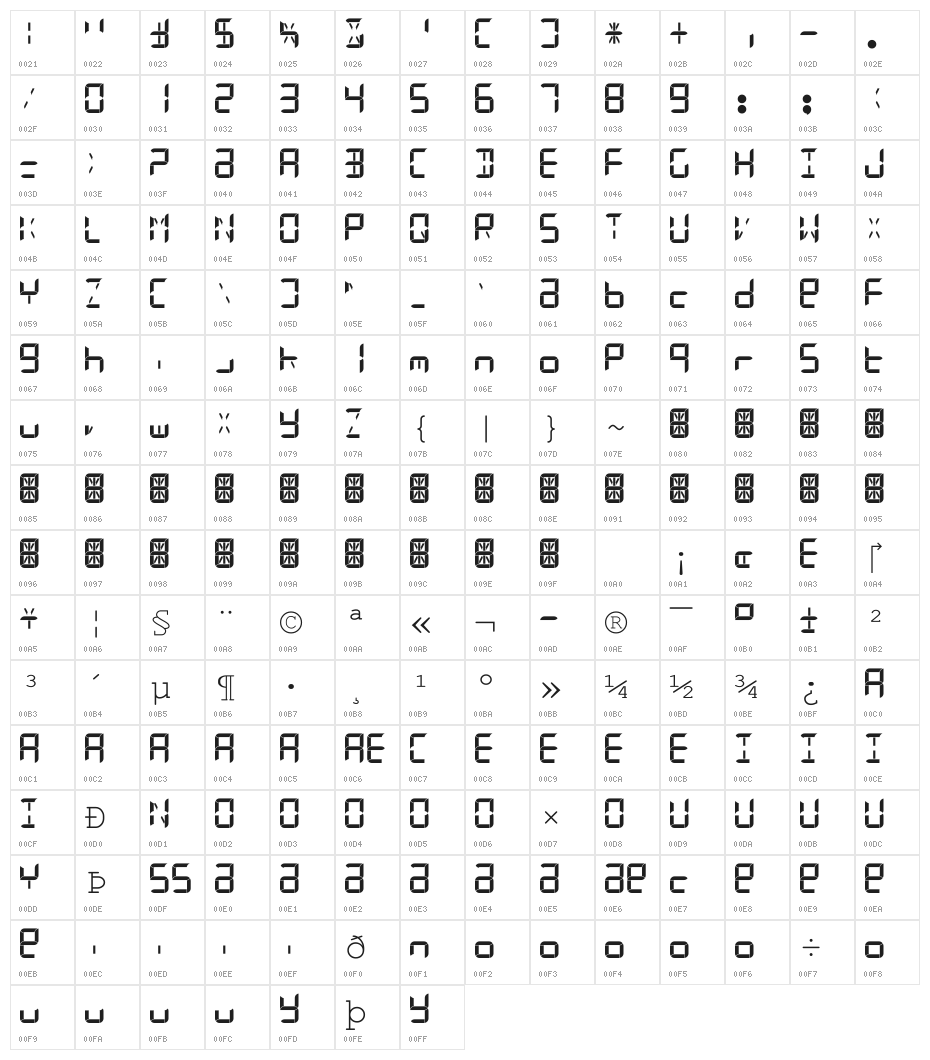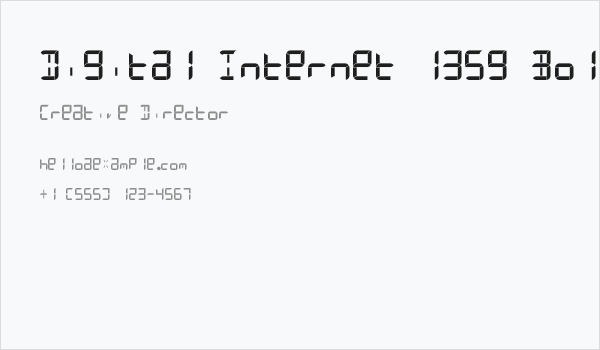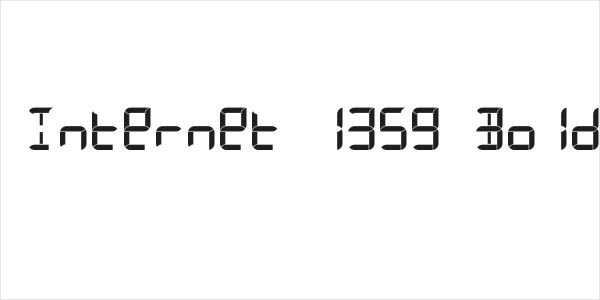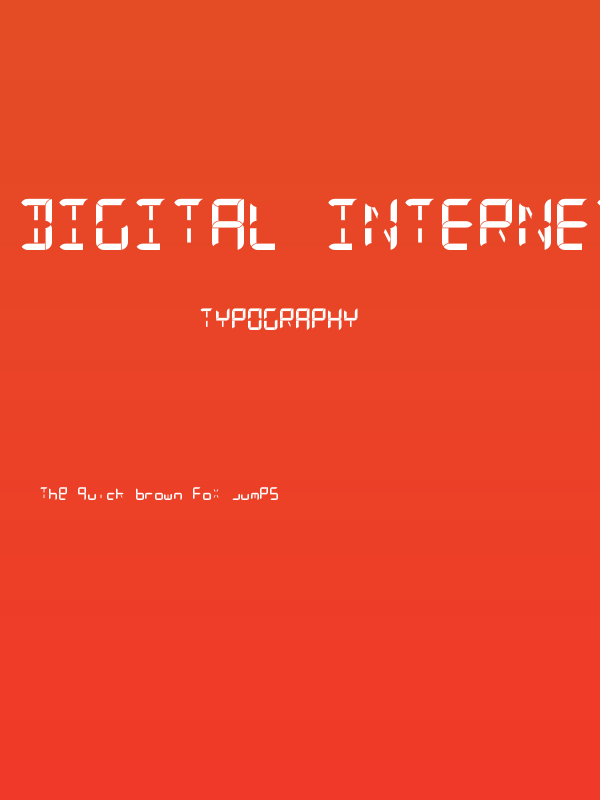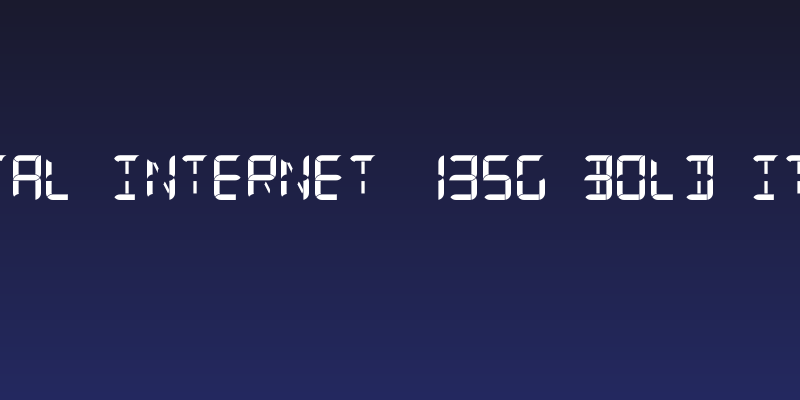
Digital Internet 13sg Bold Italic Font
Digital Internet 13sg Bold Italic Description
This font features a futuristic and digital aesthetic, characterized by its angular and geometric letterforms. Each character is composed of distinct, segmented lines that mimic the appearance of digital displays or LED screens. The uppercase and lowercase letters maintain a consistent style, with sharp edges and a uniform stroke width that gives the font a cohesive look. The numerals and special characters follow the same design principles, ensuring a seamless integration across all text elements. This font's bold and italic nature adds a dynamic and modern touch, making it stand out in digital and tech-related contexts.
| Use Case | Headlines, Logos, Digital interfaces |
| Proposed Projects | Ideal for tech branding, digital interfaces, video game graphics, and sci-fi themed projects. |